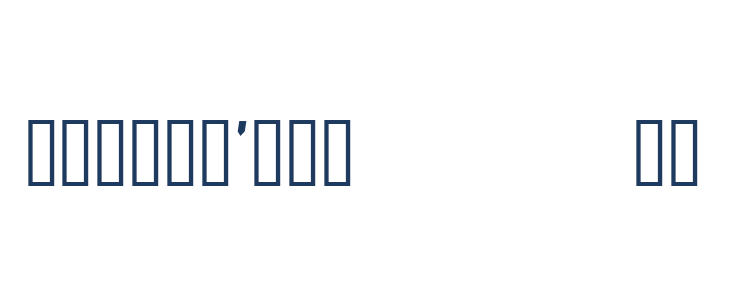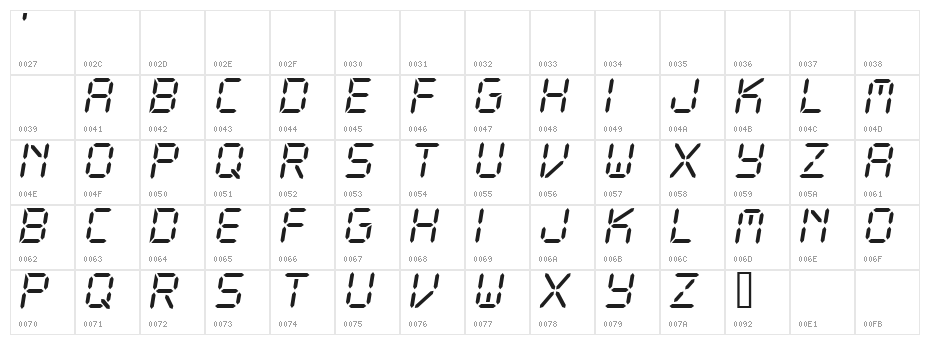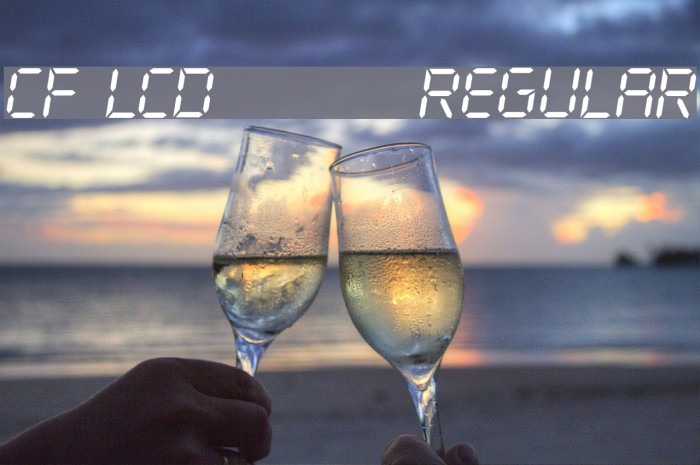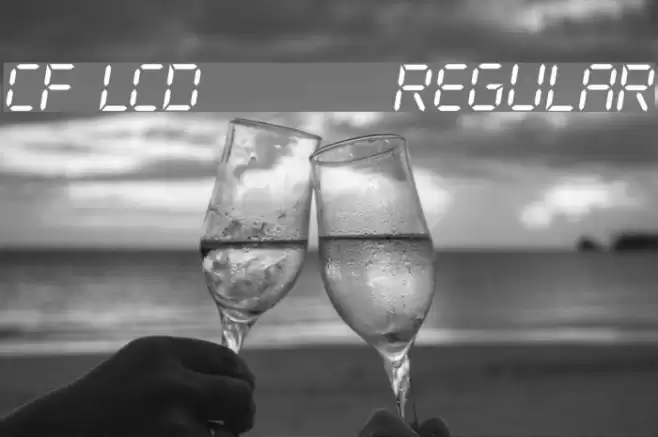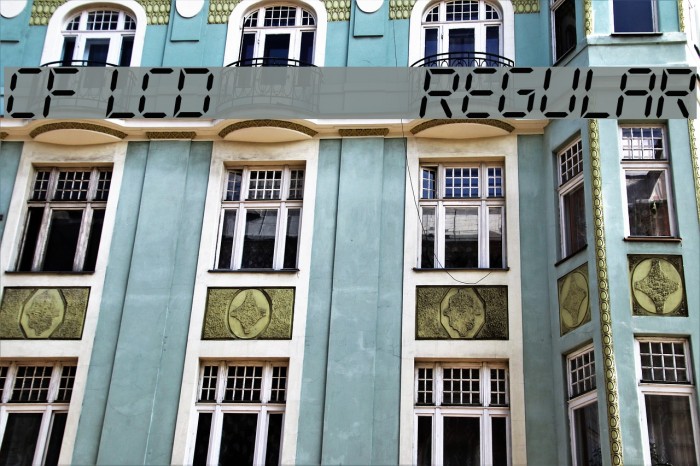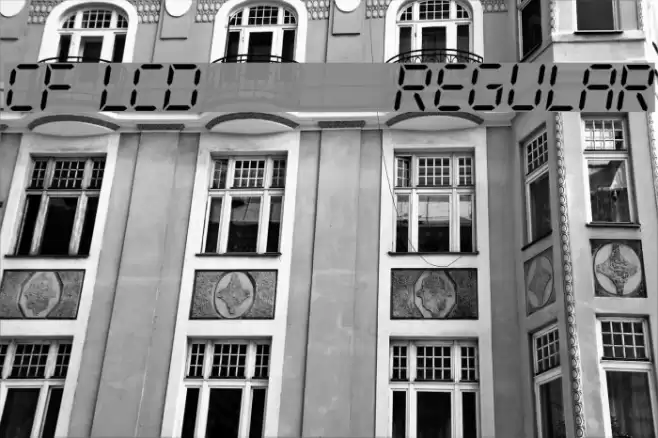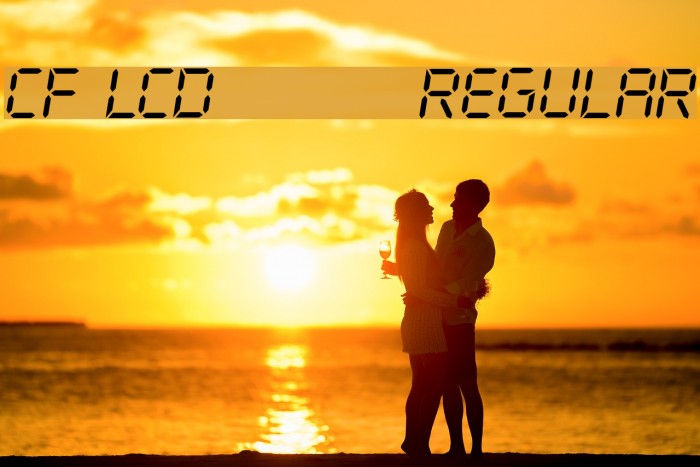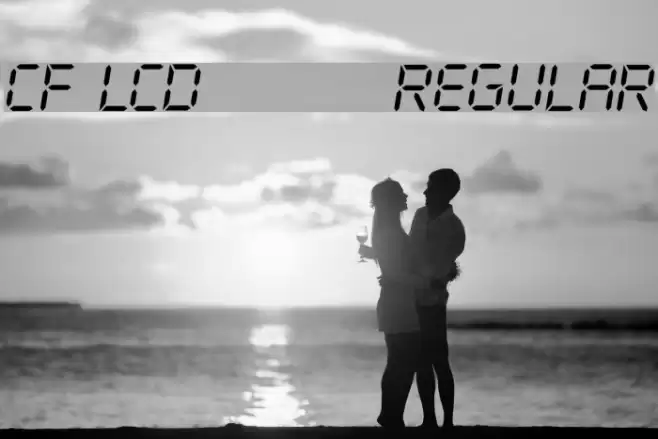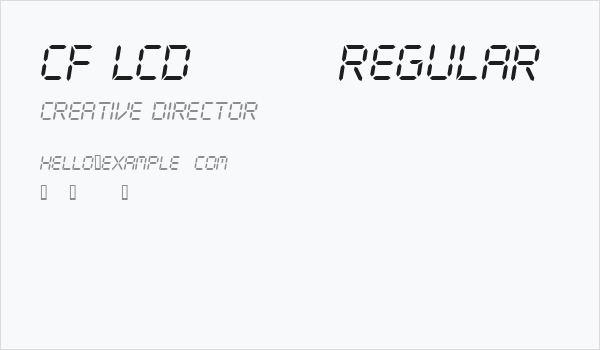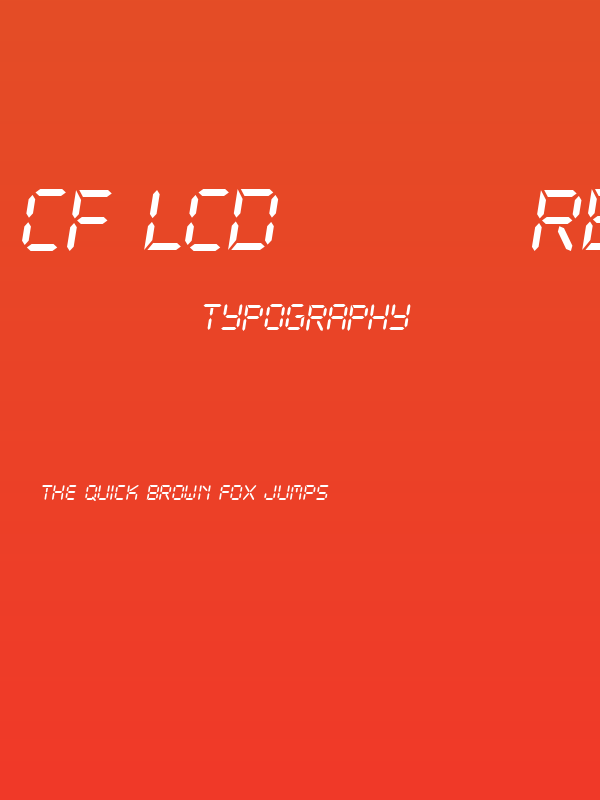
CF LCD 521 Regular Font
CF LCD 521 Regular Description
This font is a digital-inspired typeface that mimics the appearance of characters on an LCD screen. It features a geometric, segmented design that is reminiscent of digital clocks and displays. Each character is composed of straight lines and angles, creating a futuristic and technical look. The uppercase and lowercase letters are uniform in style, maintaining the segmented, blocky appearance. Numbers and special characters follow the same design principles, ensuring consistency across the font. The overall aesthetic is clean and minimalistic, making it suitable for projects that require a modern, digital feel.